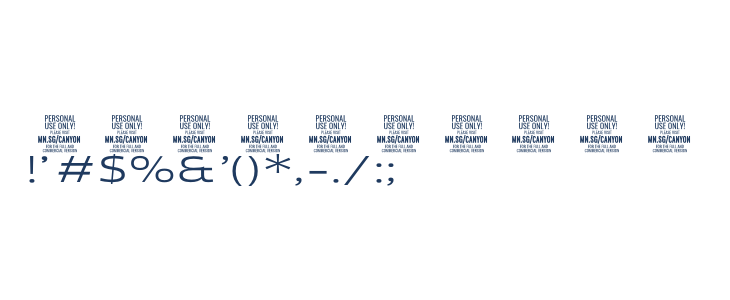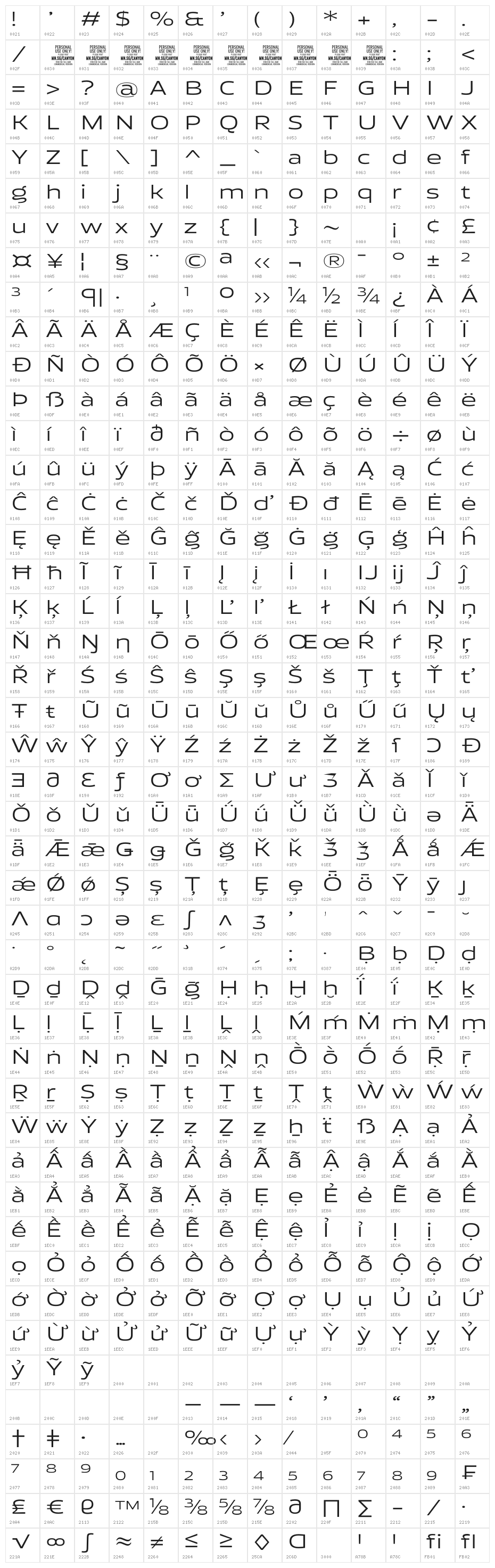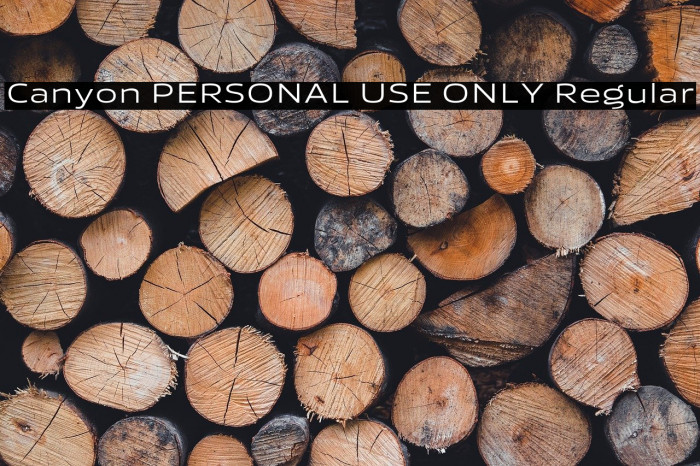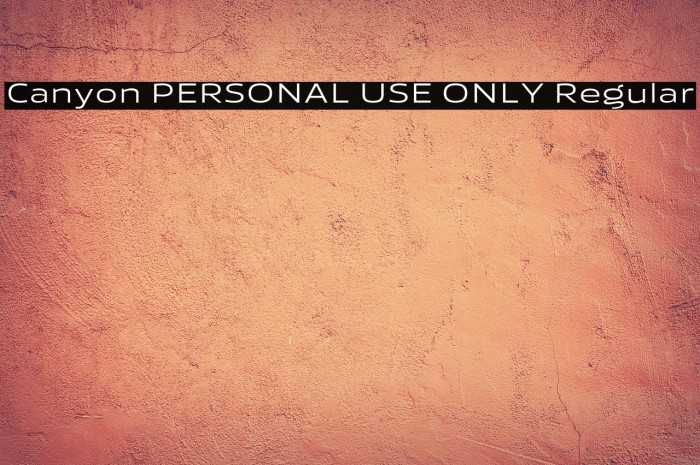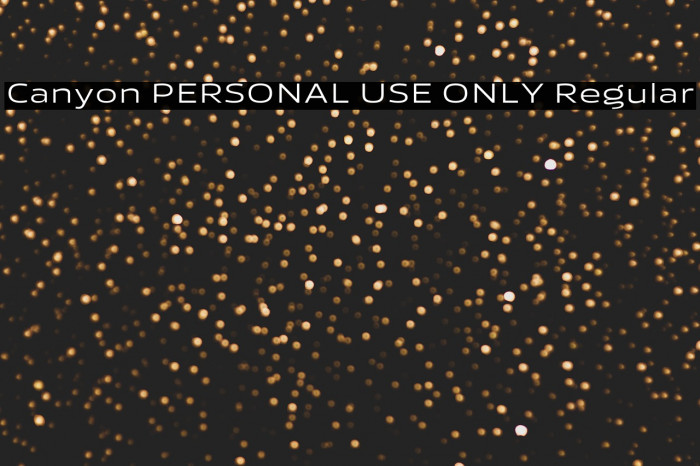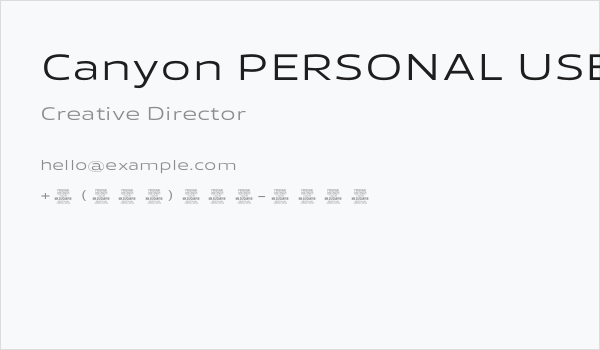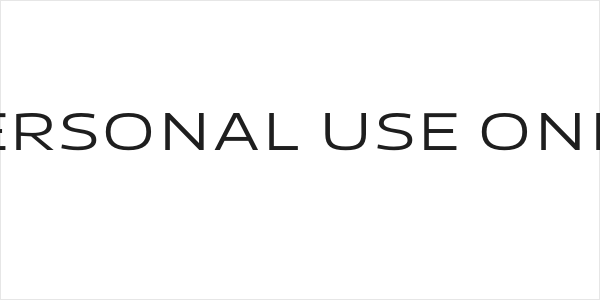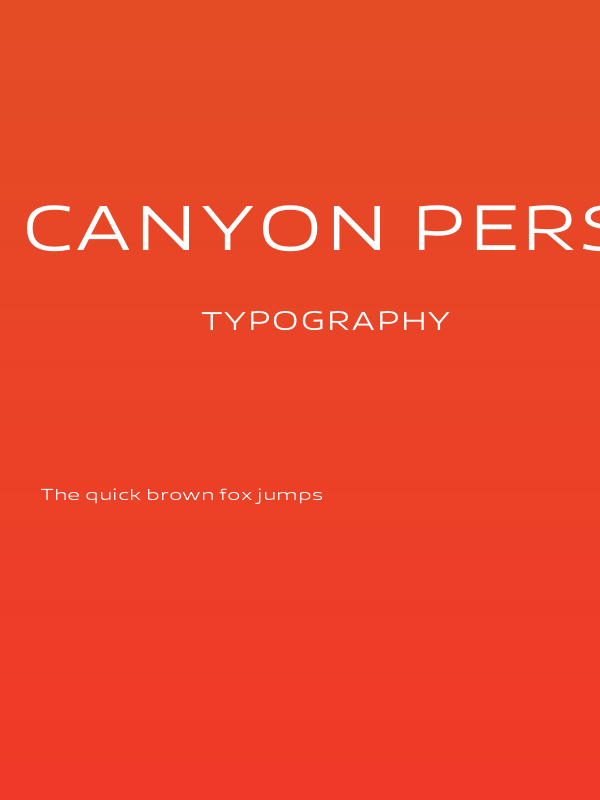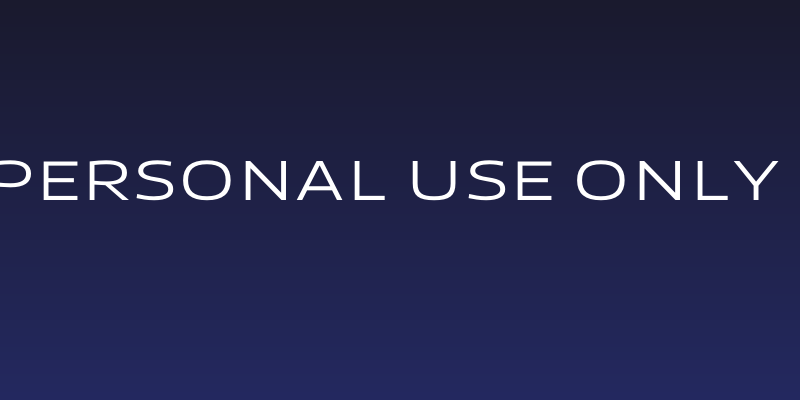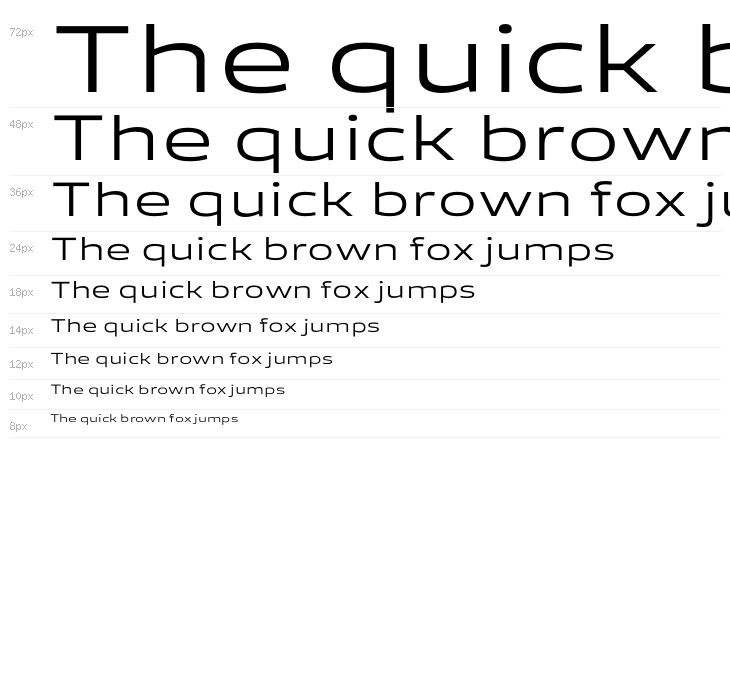
Canyon PERSONAL USE ONLY Regular Font
Canyon PERSONAL USE ONLY Regular Description
This font features a clean and modern sans-serif design with smooth curves and a balanced structure. The uppercase letters are bold and assertive, while the lowercase letters maintain a friendly and approachable feel. The numerals are clear and legible, making them suitable for various applications. Special characters are well-integrated, providing versatility for different uses. The overall appearance is sleek and professional, making it ideal for contemporary design projects.